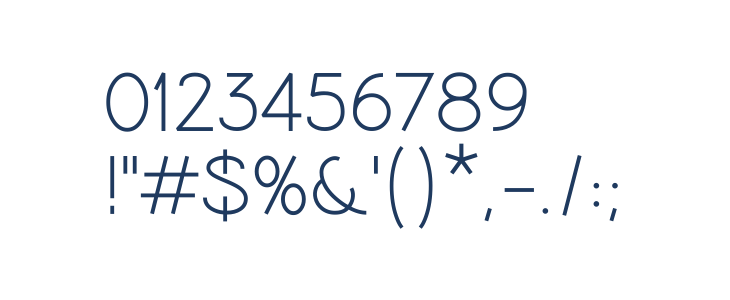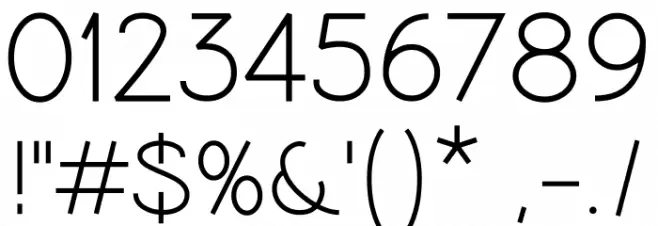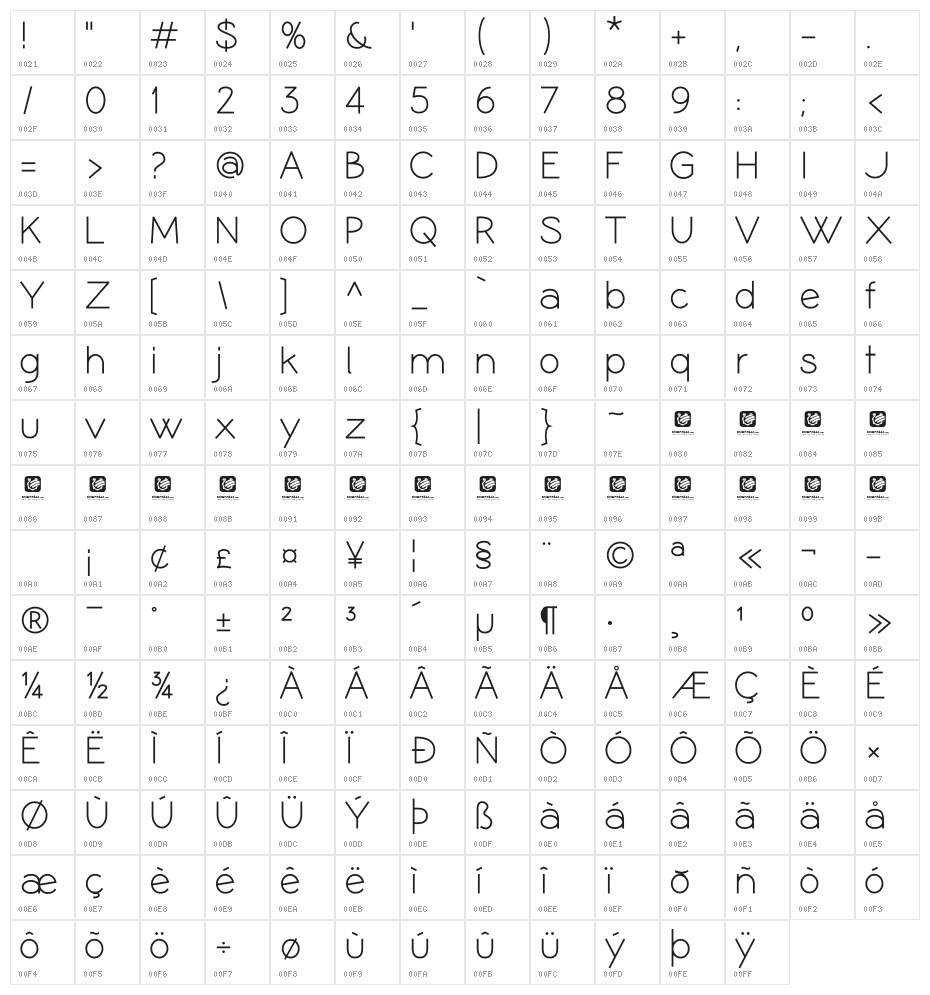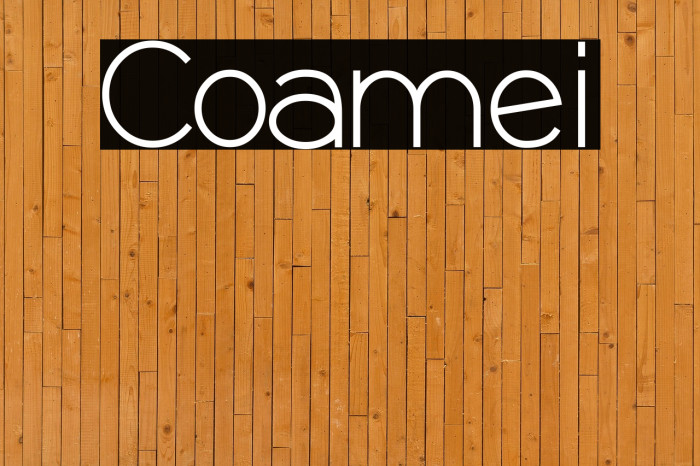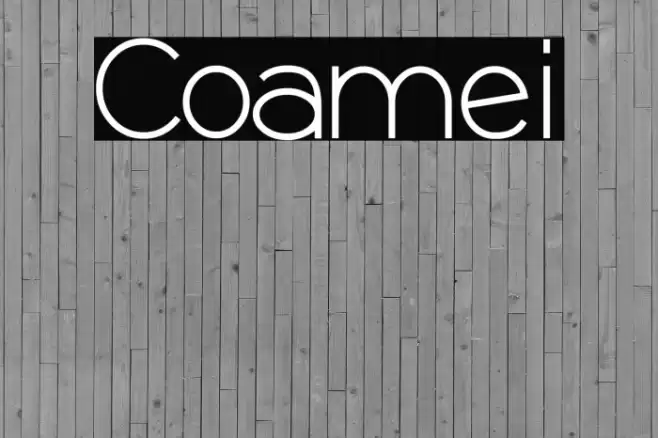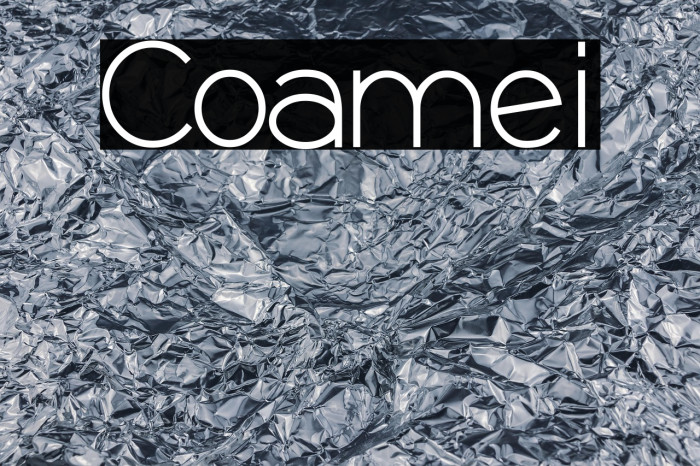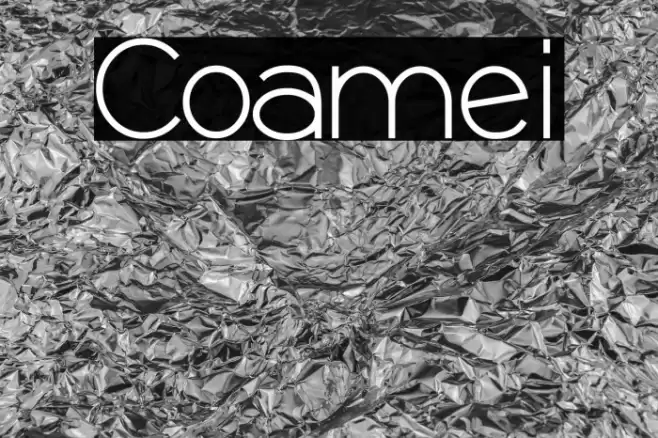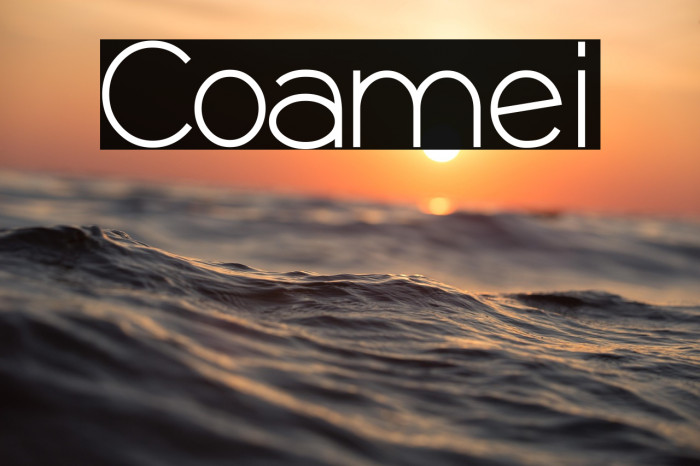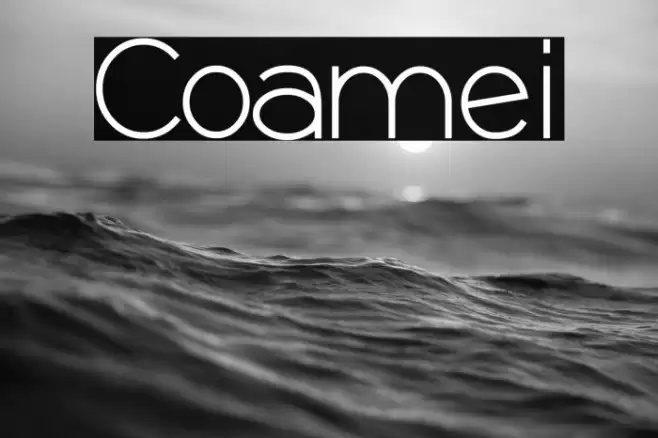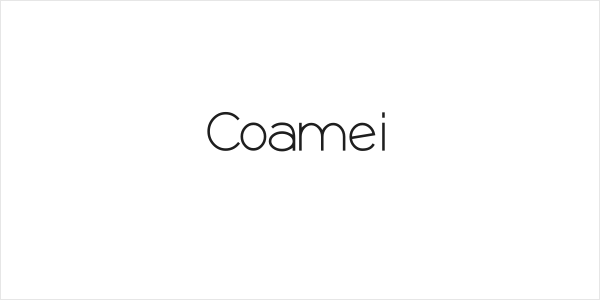
Coamei Font
Coamei Description
This font features a clean and modern sans-serif design, characterized by its geometric shapes and uniform stroke width. The uppercase letters are bold and assertive, while the lowercase letters maintain a consistent roundness and simplicity. The numerals are clear and legible, making them suitable for both digital and print media. Special characters are well-defined, adding versatility to the font's usage. The overall appearance is sleek and professional, making it ideal for contemporary design projects.
| Proposed Projects | Ideal for branding, web design, advertising, and editorial layouts. |